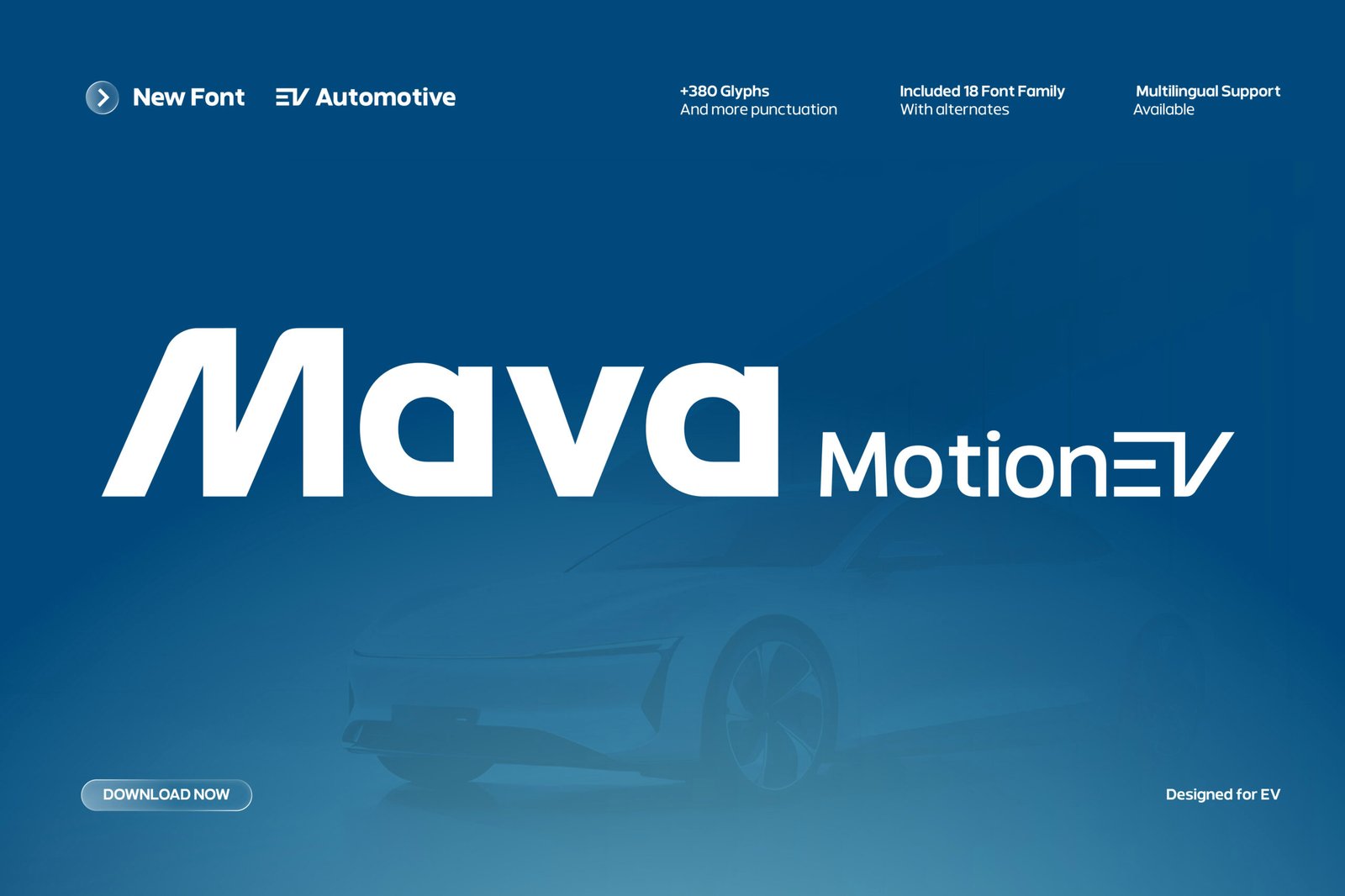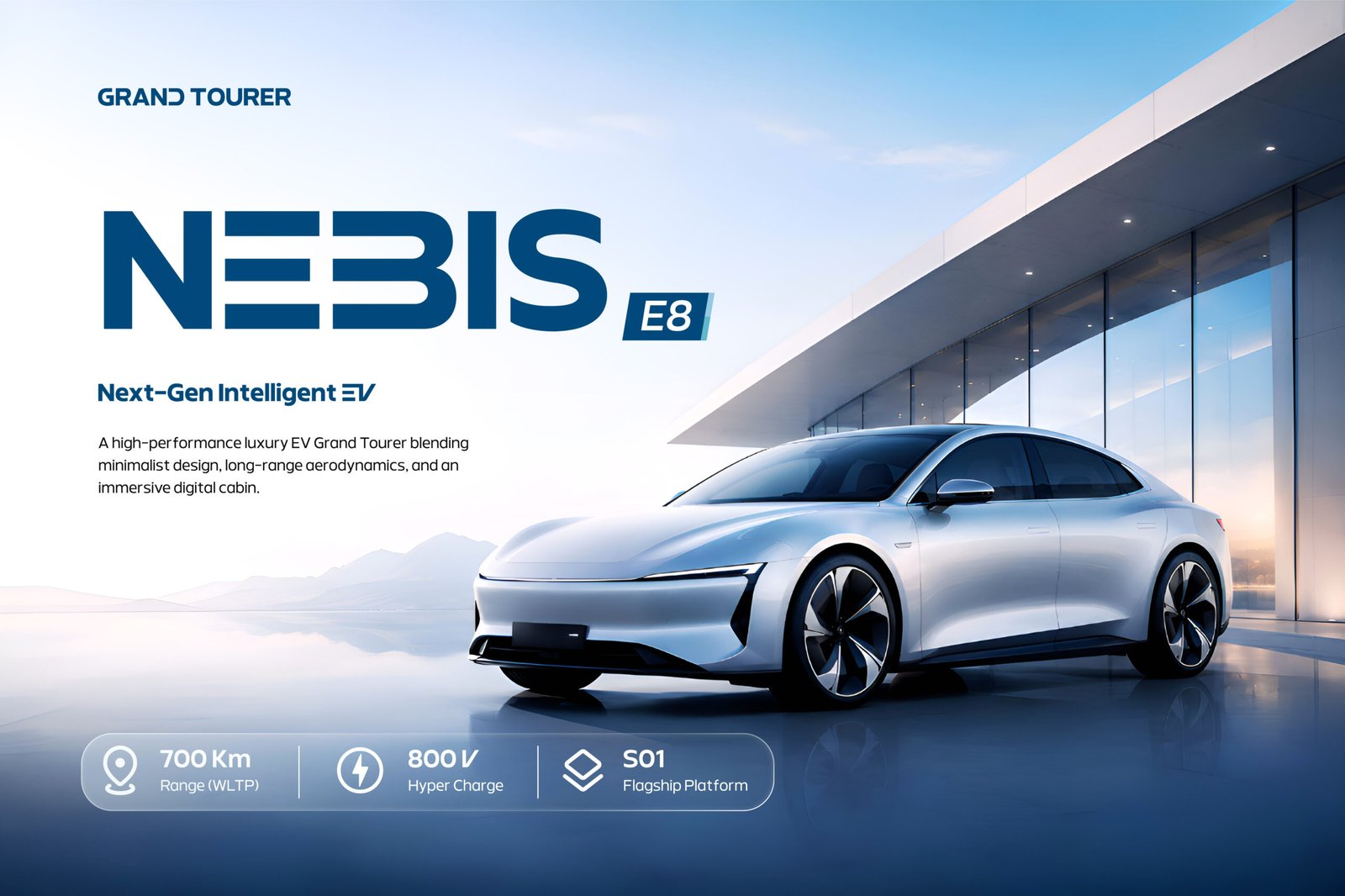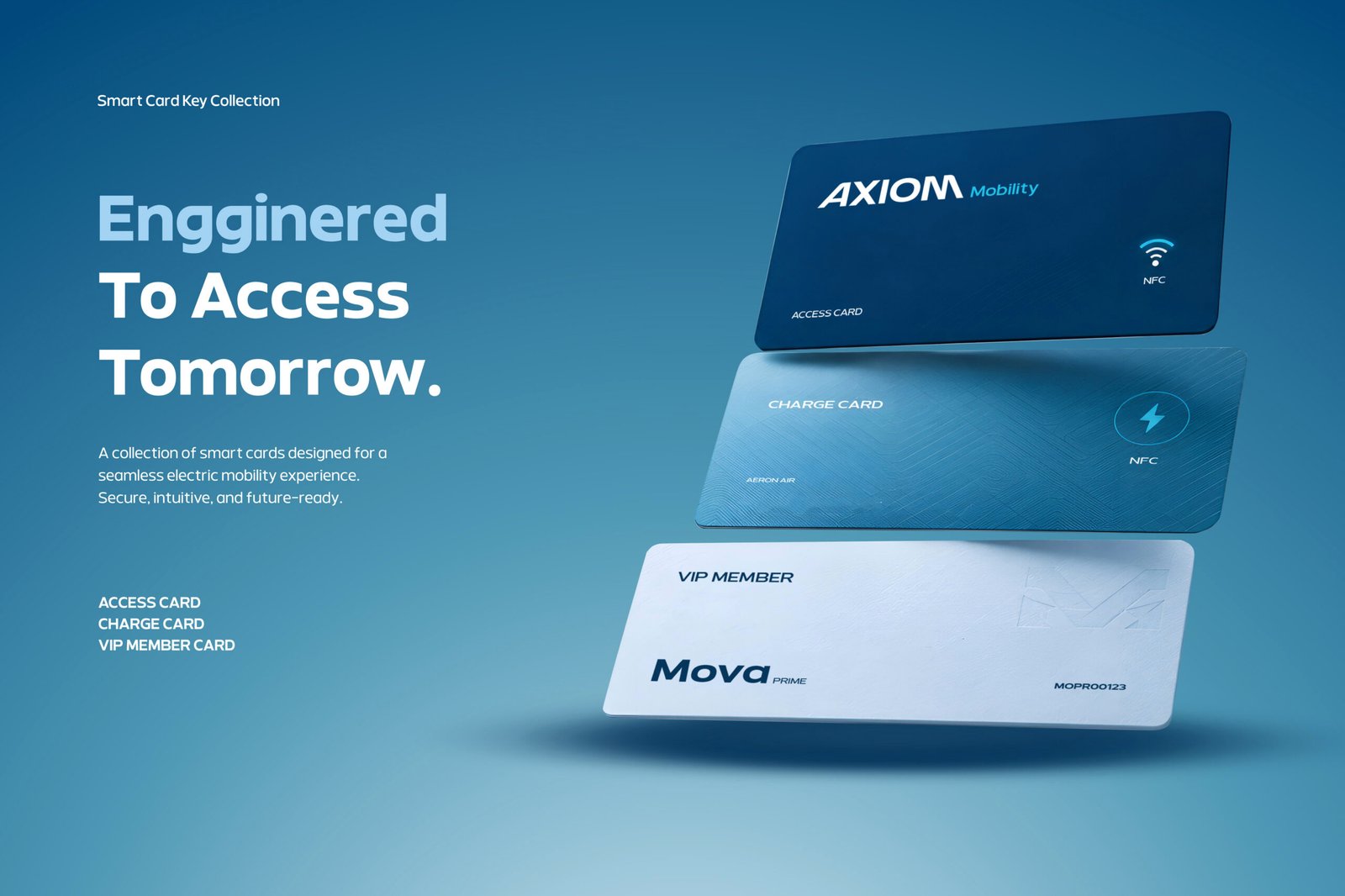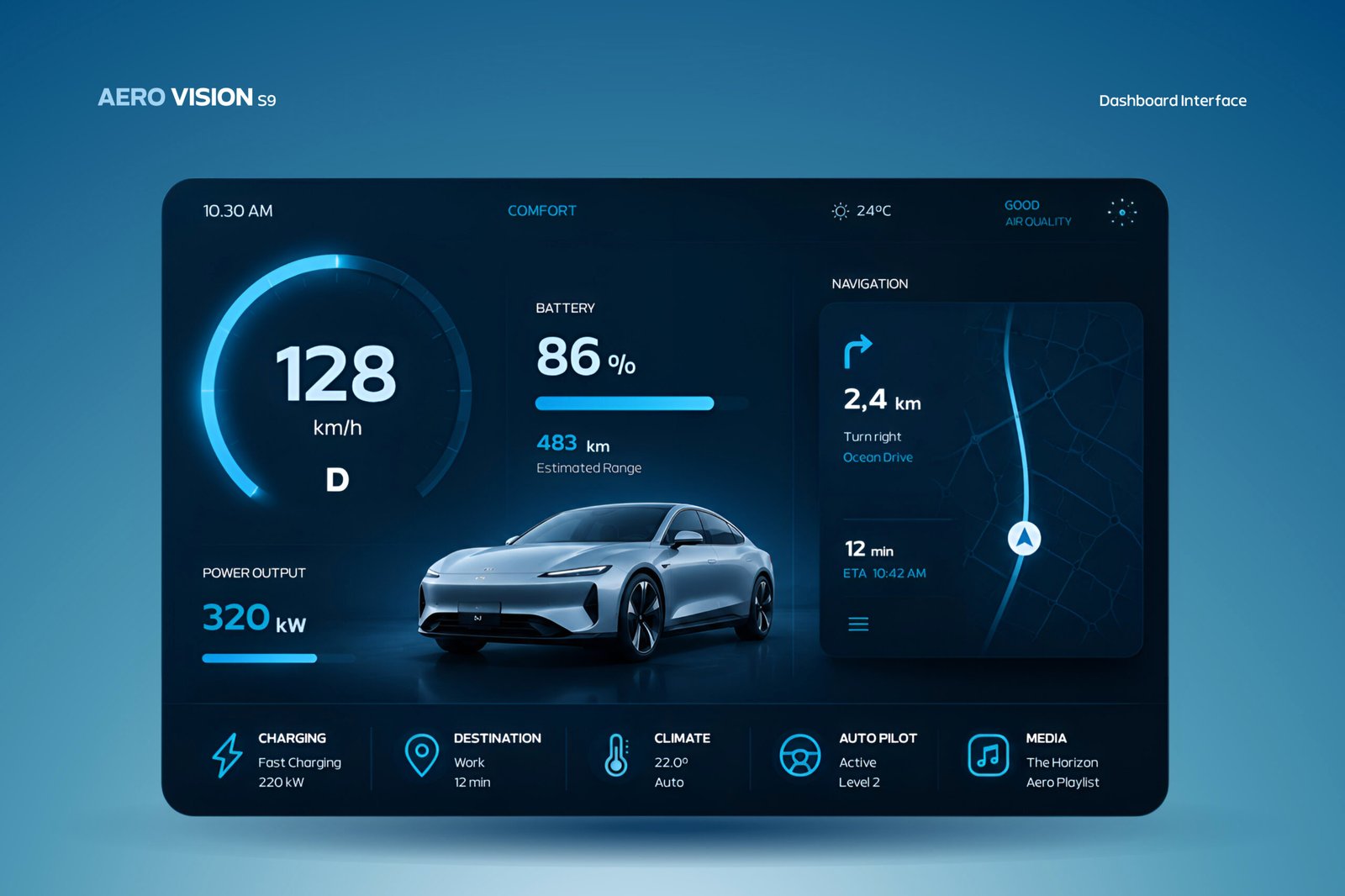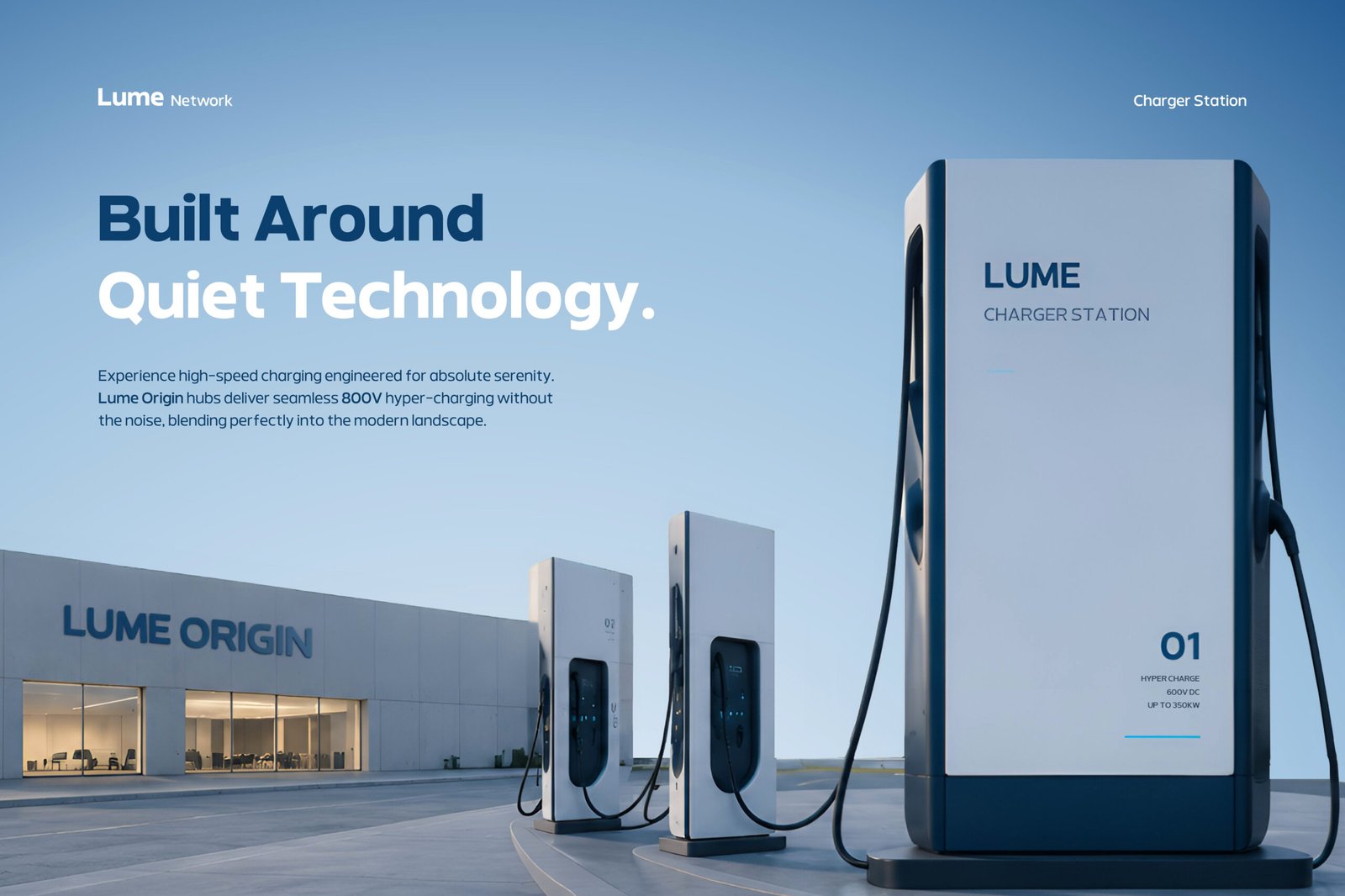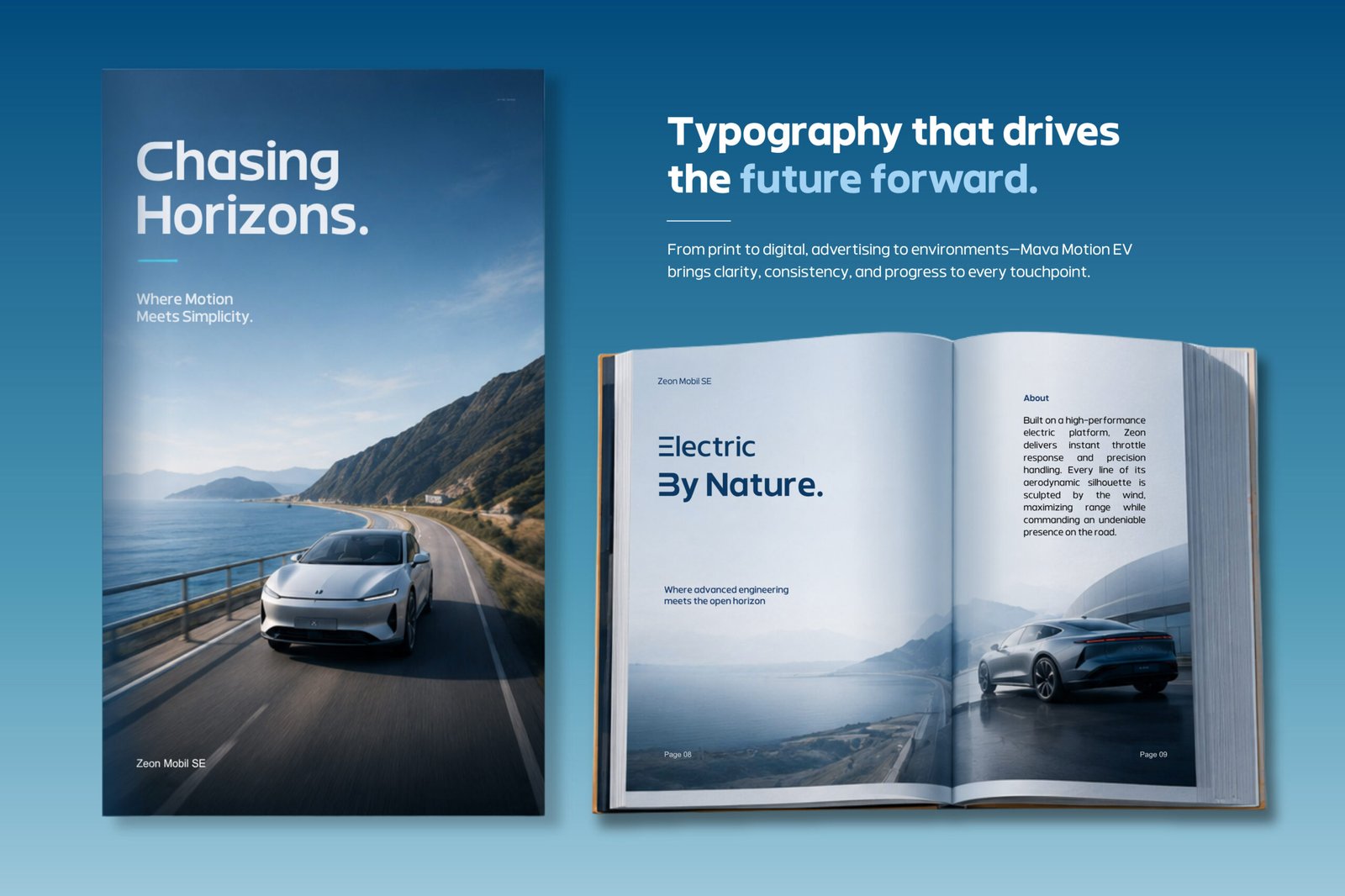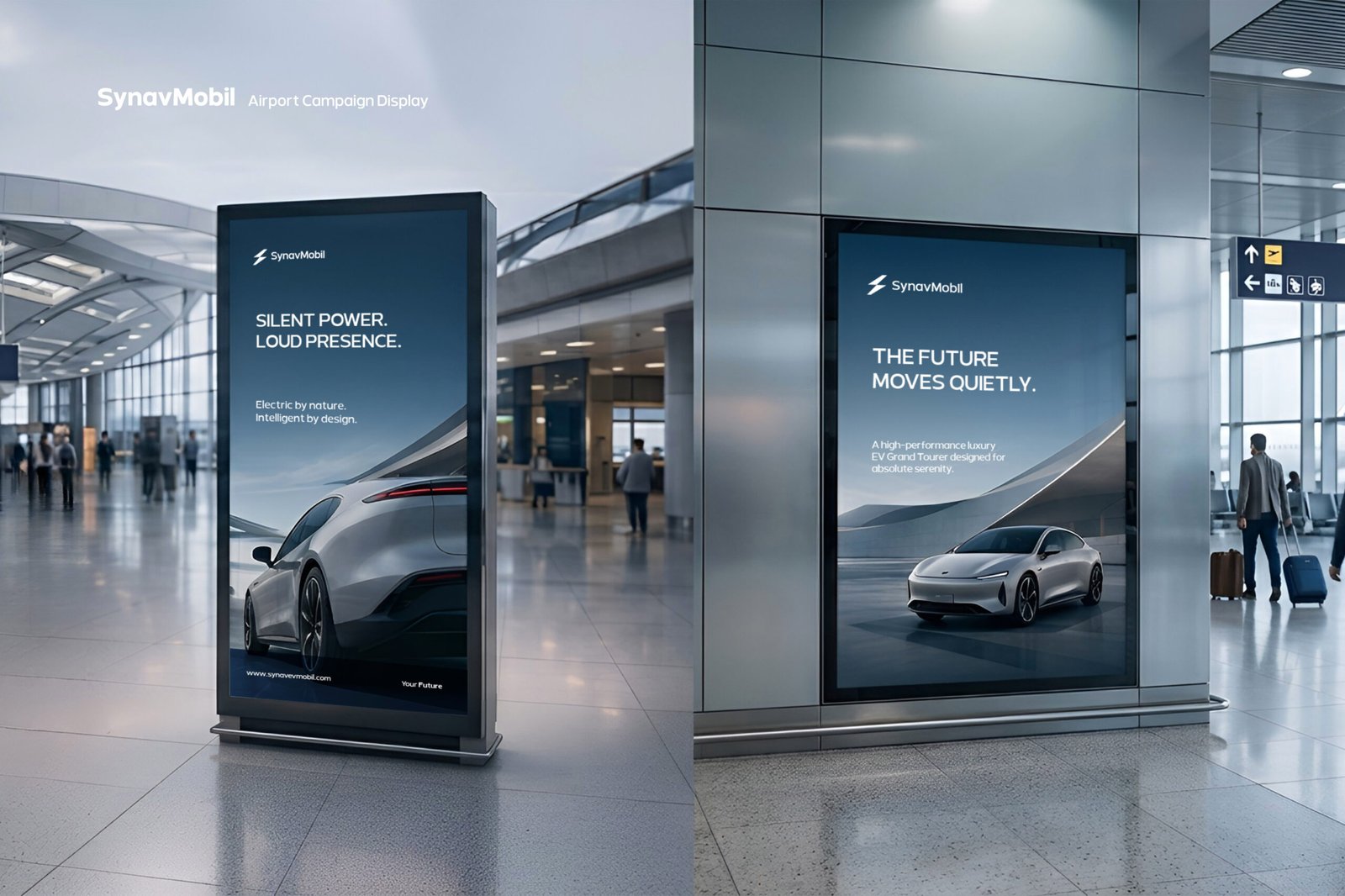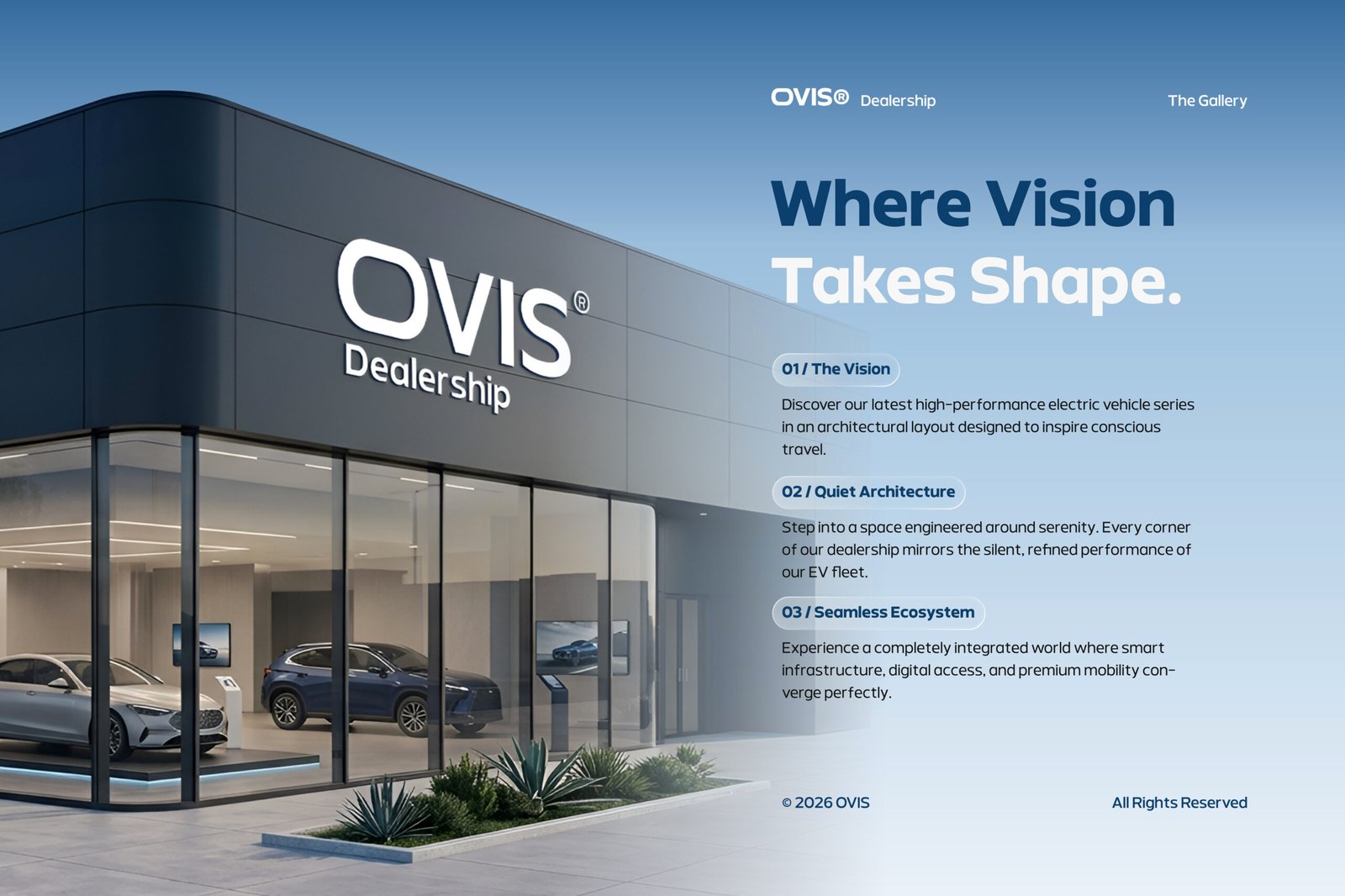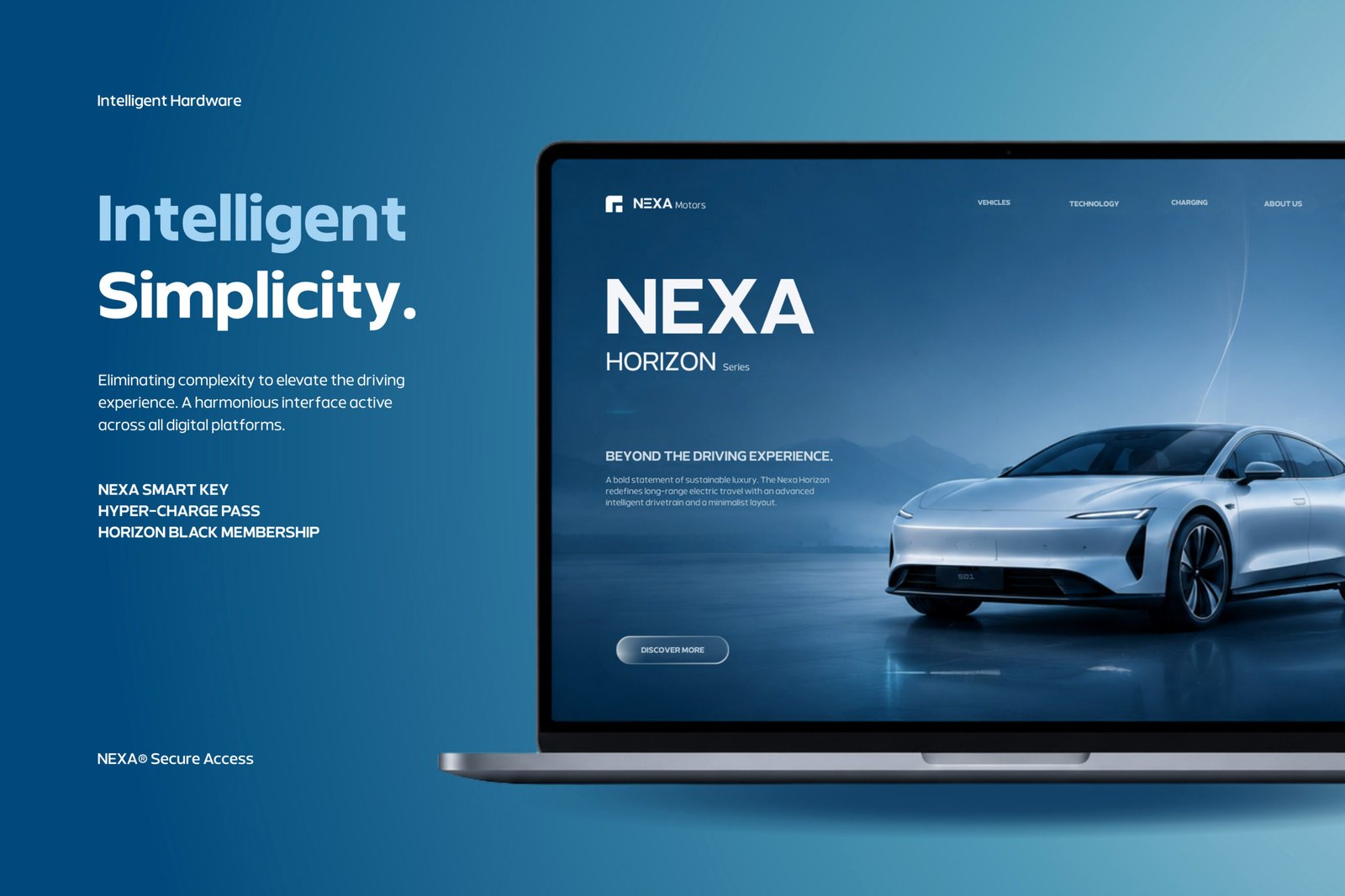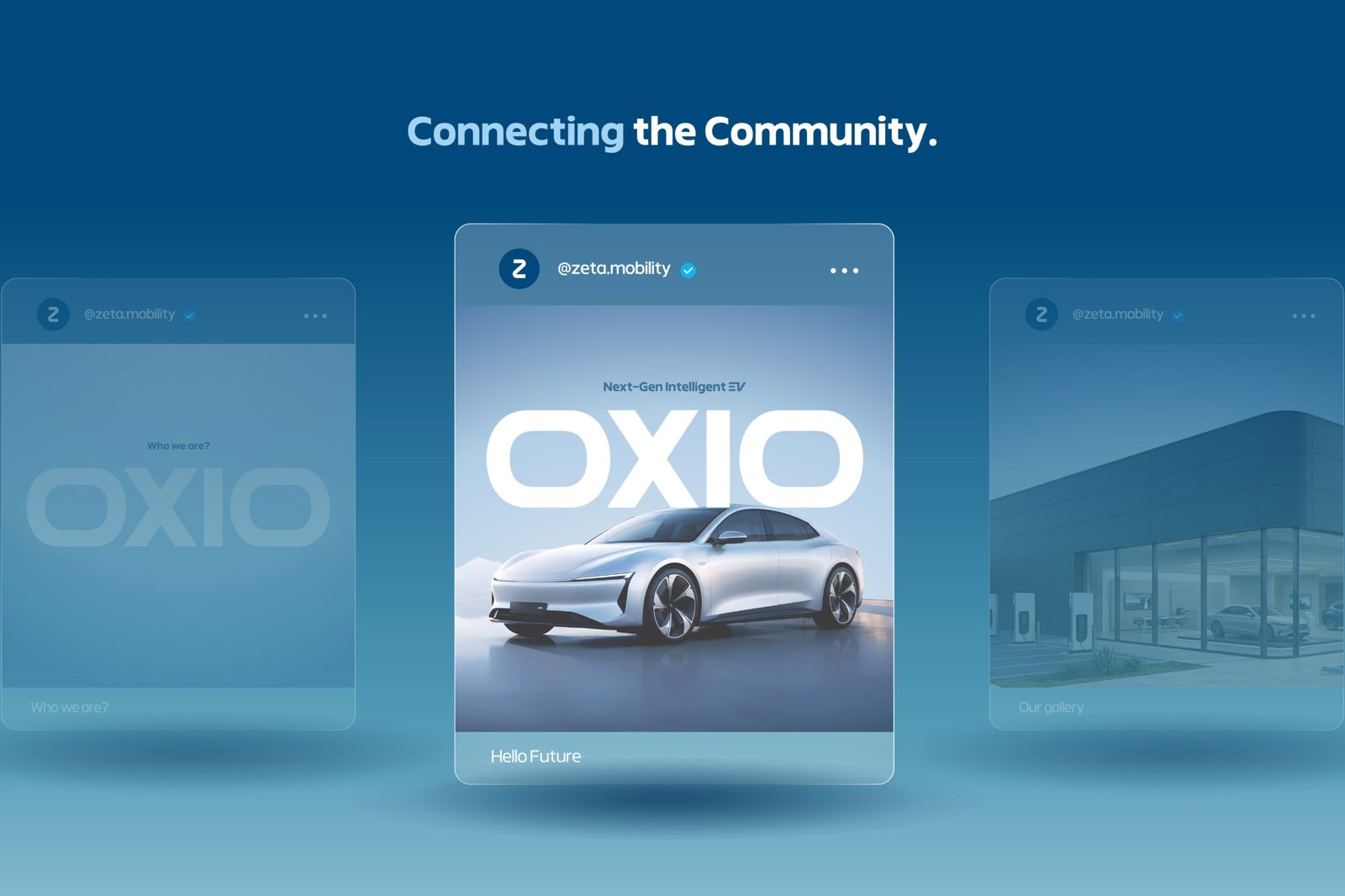
MavaMotionEV – Electric Vehicle Sans
Roman
Italic
MavaMotionEV is a modern sans serif typeface designed for the rapidly growing Electric Vehicle (EV) industry, automotive brands, sustainable energy companies, and future mobility technology. Featuring clean geometric forms and bold contemporary styling, it delivers a premium, innovative, and professional visual identity for modern businesses.
Including 18 font family styles, multilingual support, stylistic alternates, and professional ligatures, MavaMotionEV is ideal for logos, corporate branding, electric vehicle manufacturers, battery technology, charging infrastructure, automotive websites, UI design, dashboards, presentations, packaging, advertising, and any project that requires a clean, futuristic, and technology-driven appearance.